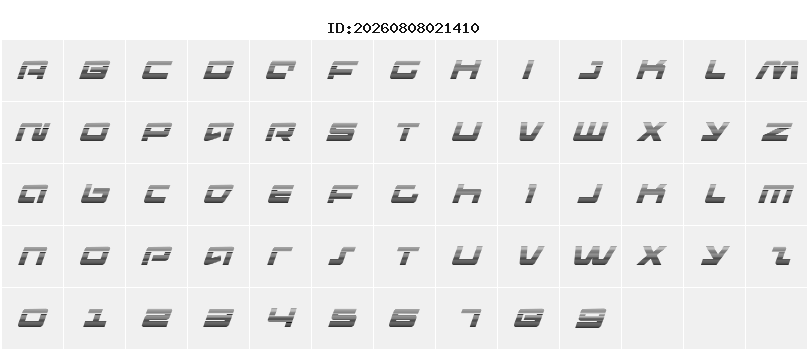
About Pulse Rifle Gradient Italic.ttf
Pulse Rifle Gradient Italic.ttf is a modern, elegant sans-serif font designed for ultimate readability and visual harmony. Perfect for branding, headlines, web design, and print materials.